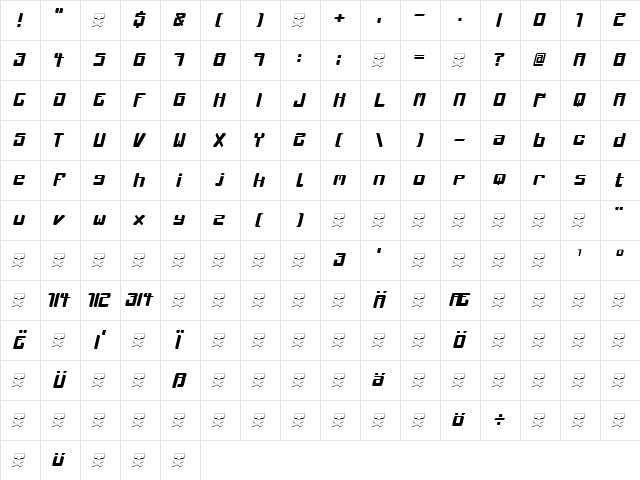
mclovin regular
| Foundry | Simon Thomaschke |
mclovin is a composed and adaptable typeface that performs quietly and consistently across a wide range of design contexts.